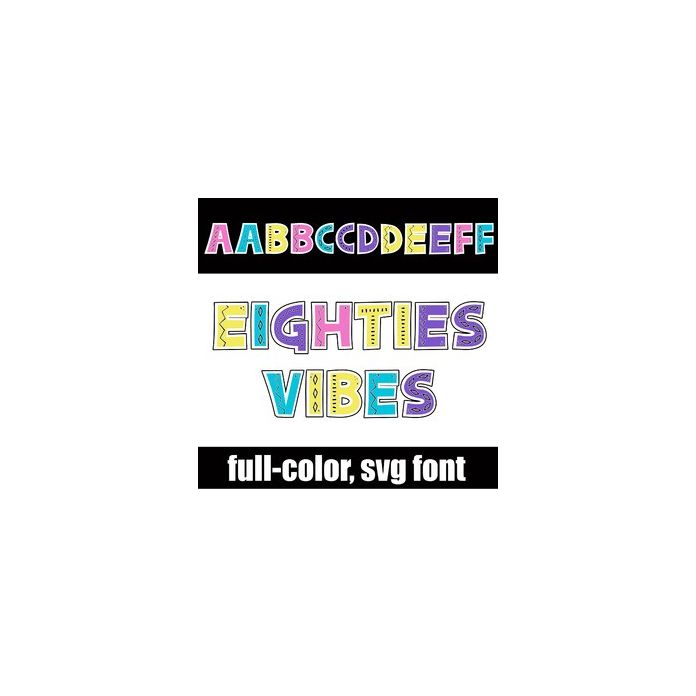
This full-color font features a blocky sans lettering with bold, black designs on an 80's color palette. There is a secondary color of each letter you can access through your system's or Silhouette's glyph map.